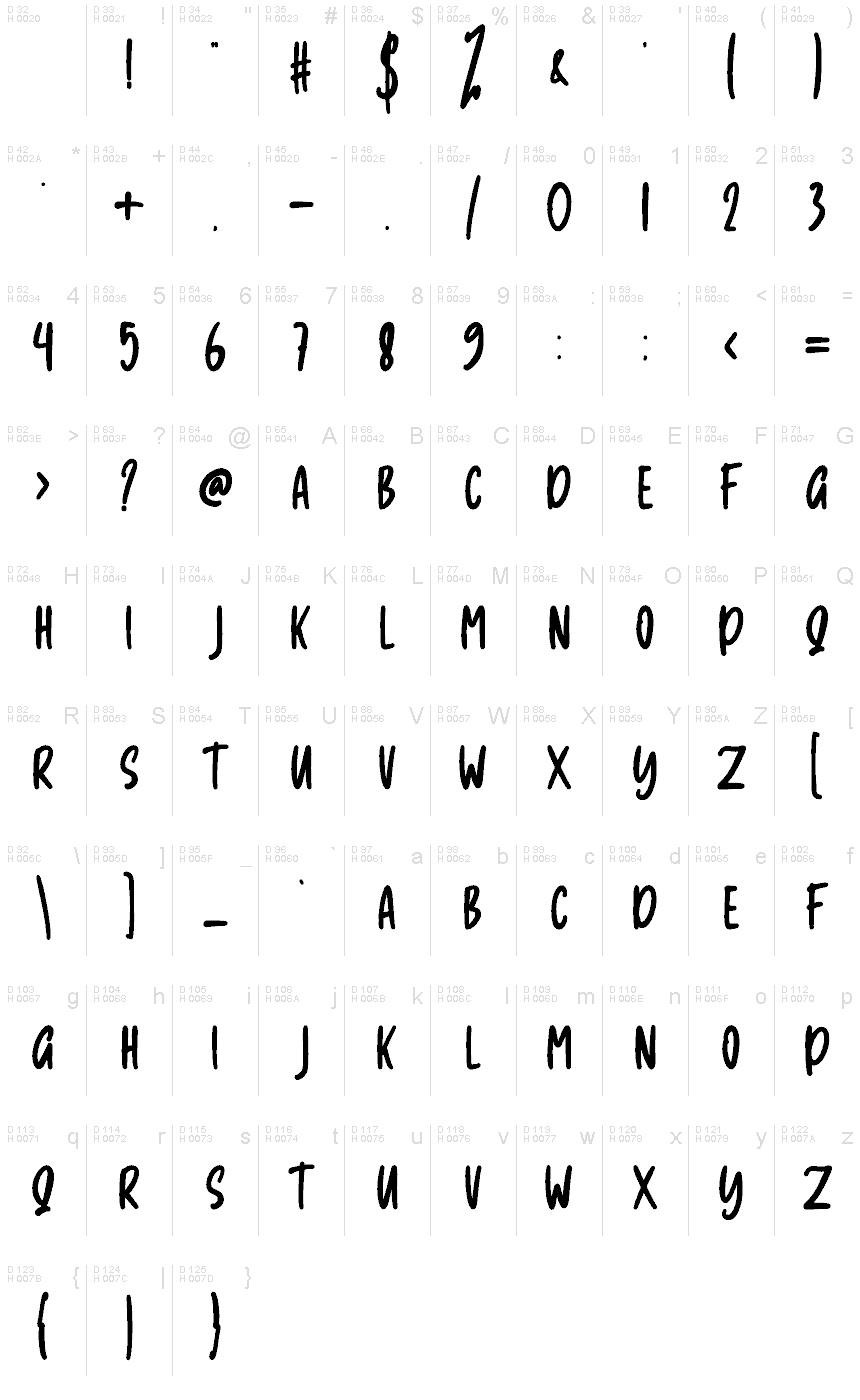
Taycus
Taycus font by Skiiller Studio is a condensed handwritten font with a casual aesthetic. It brings a neat appearance in an informal yet professional manner as each letter exhibits editable elegance. This contemporary font strikes with smooth connections between the rounded characters creating an interesting display laced with modernity.